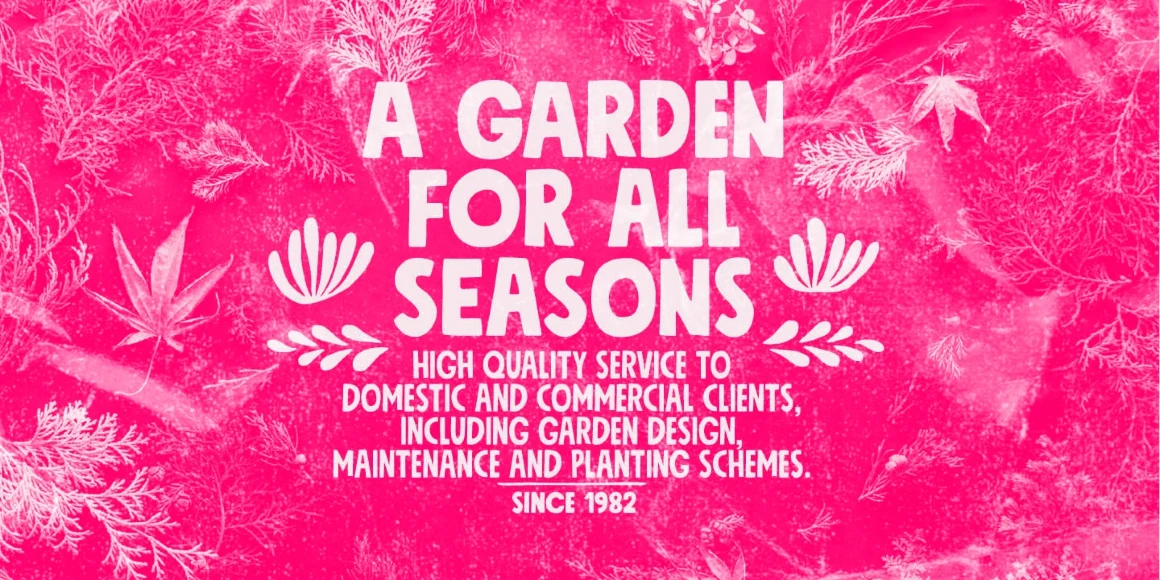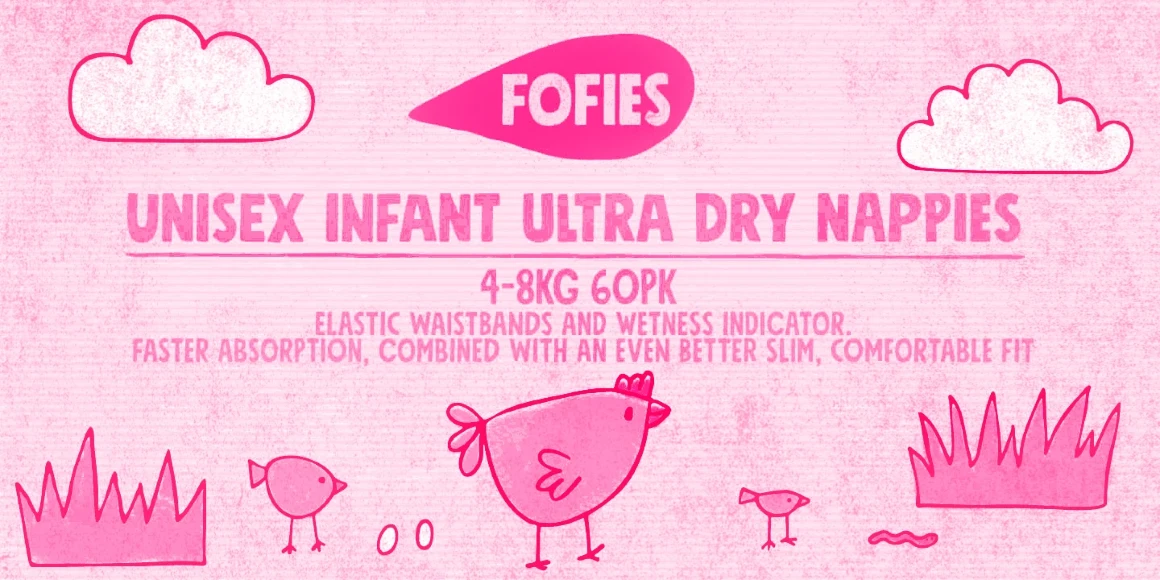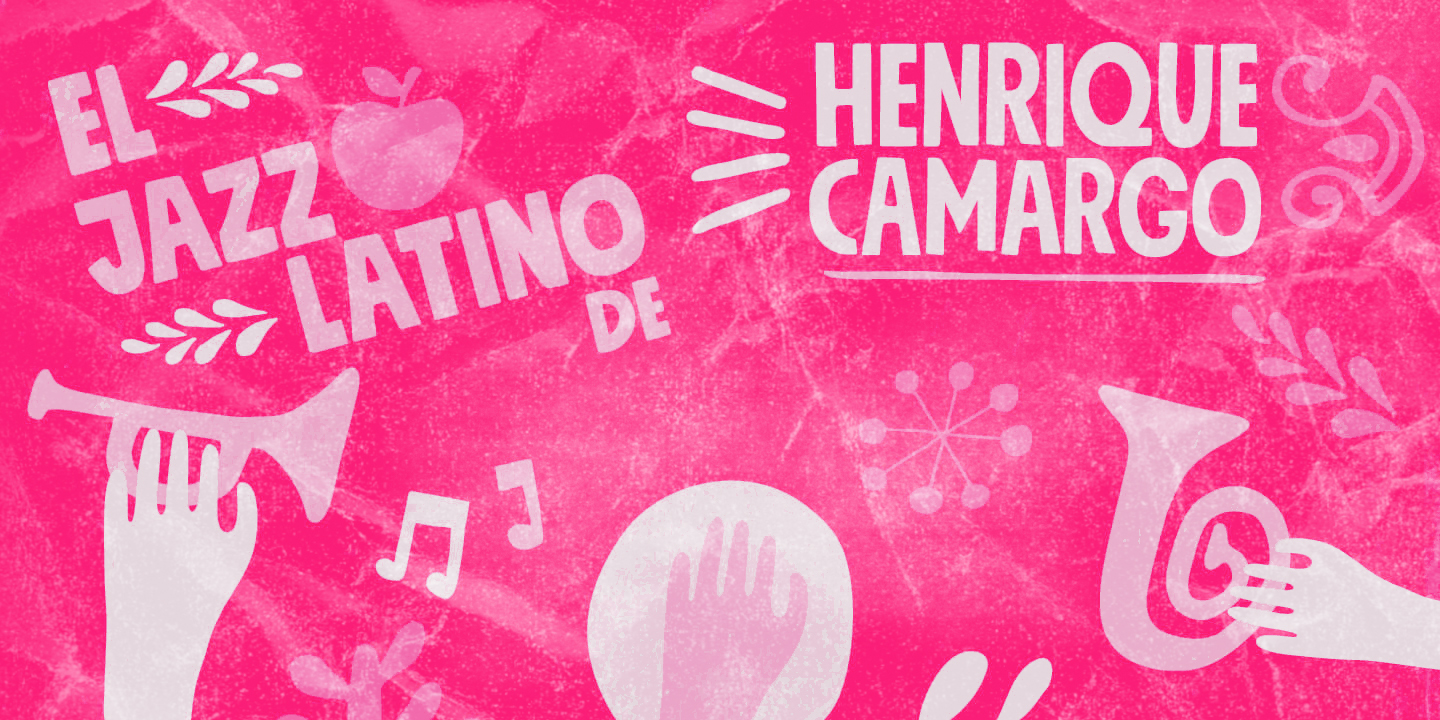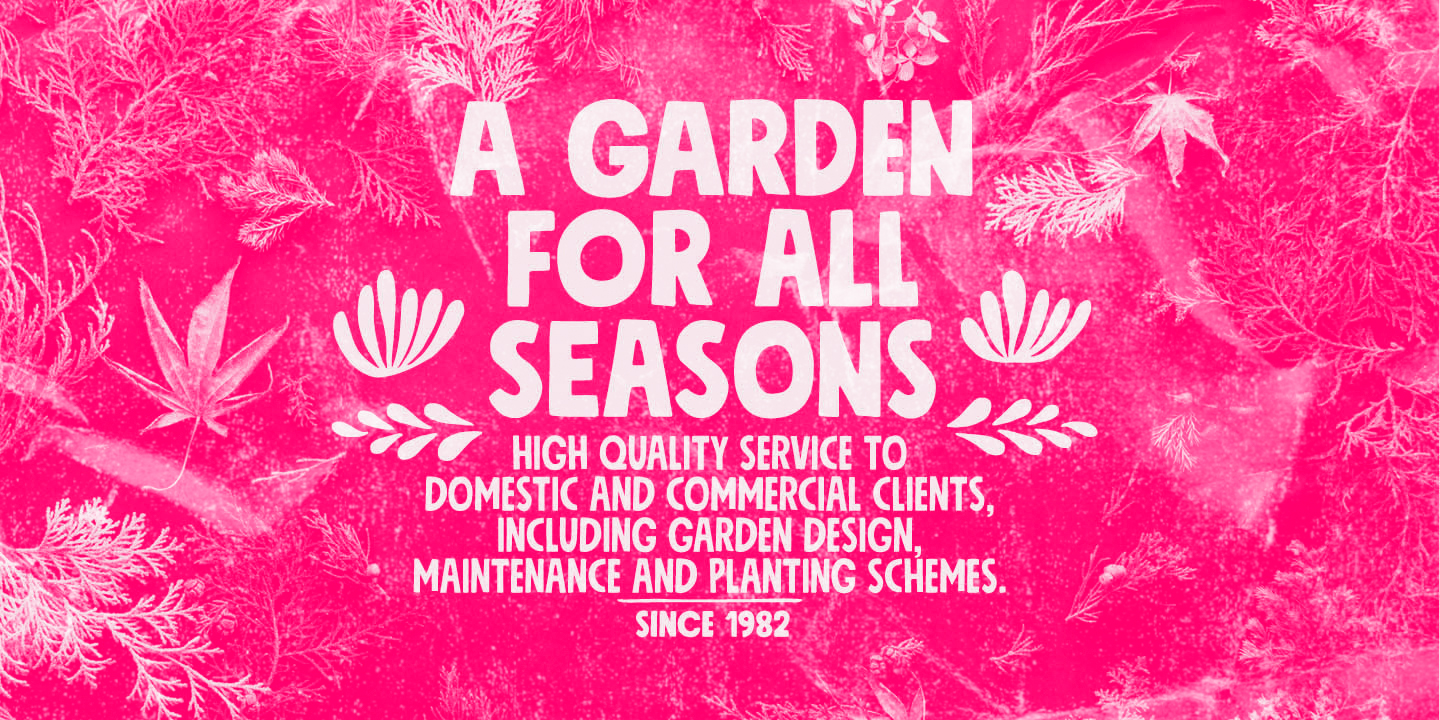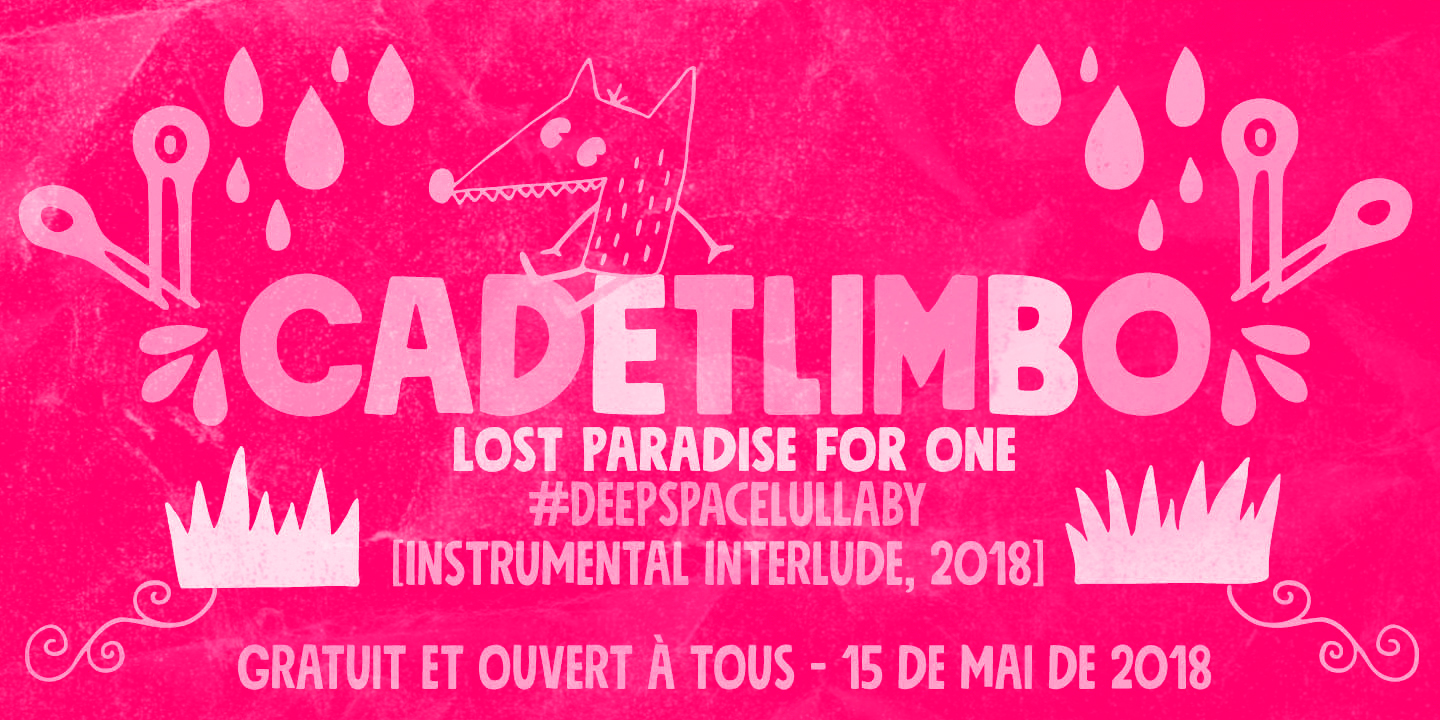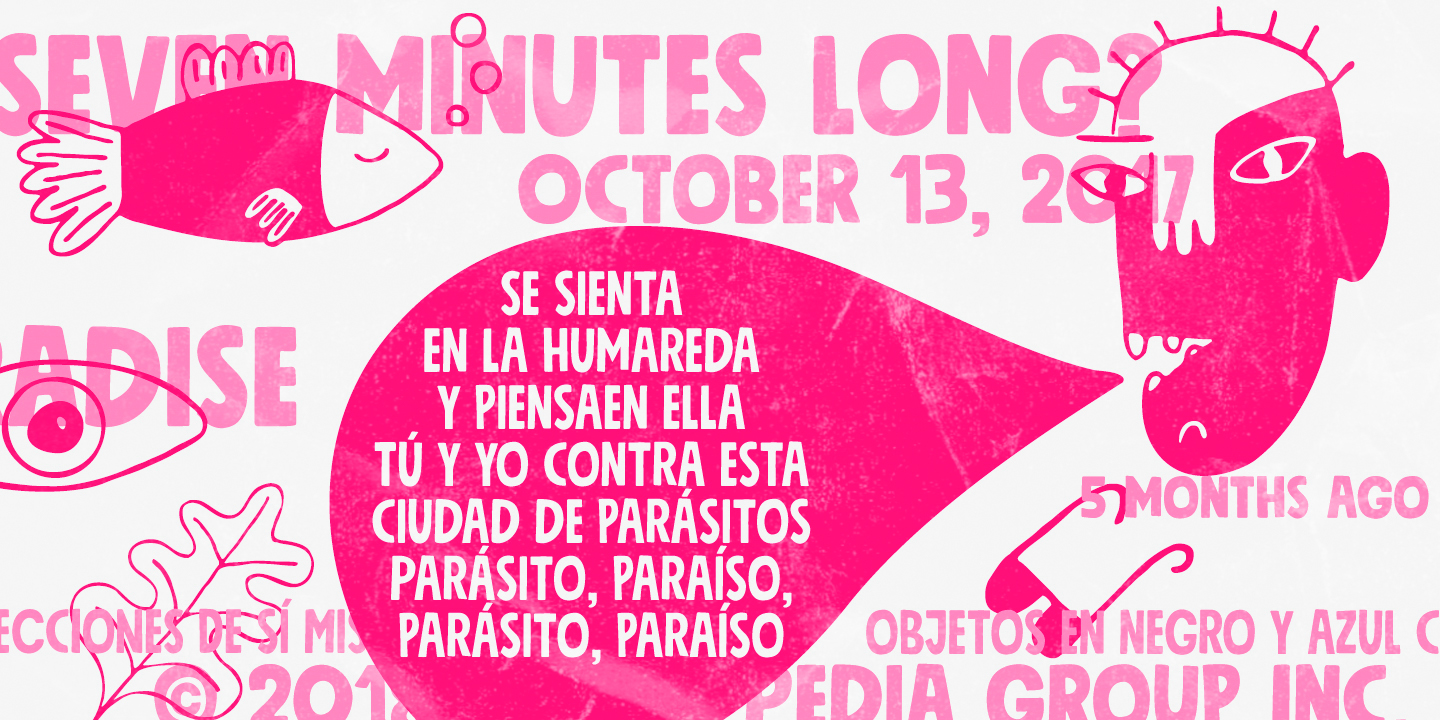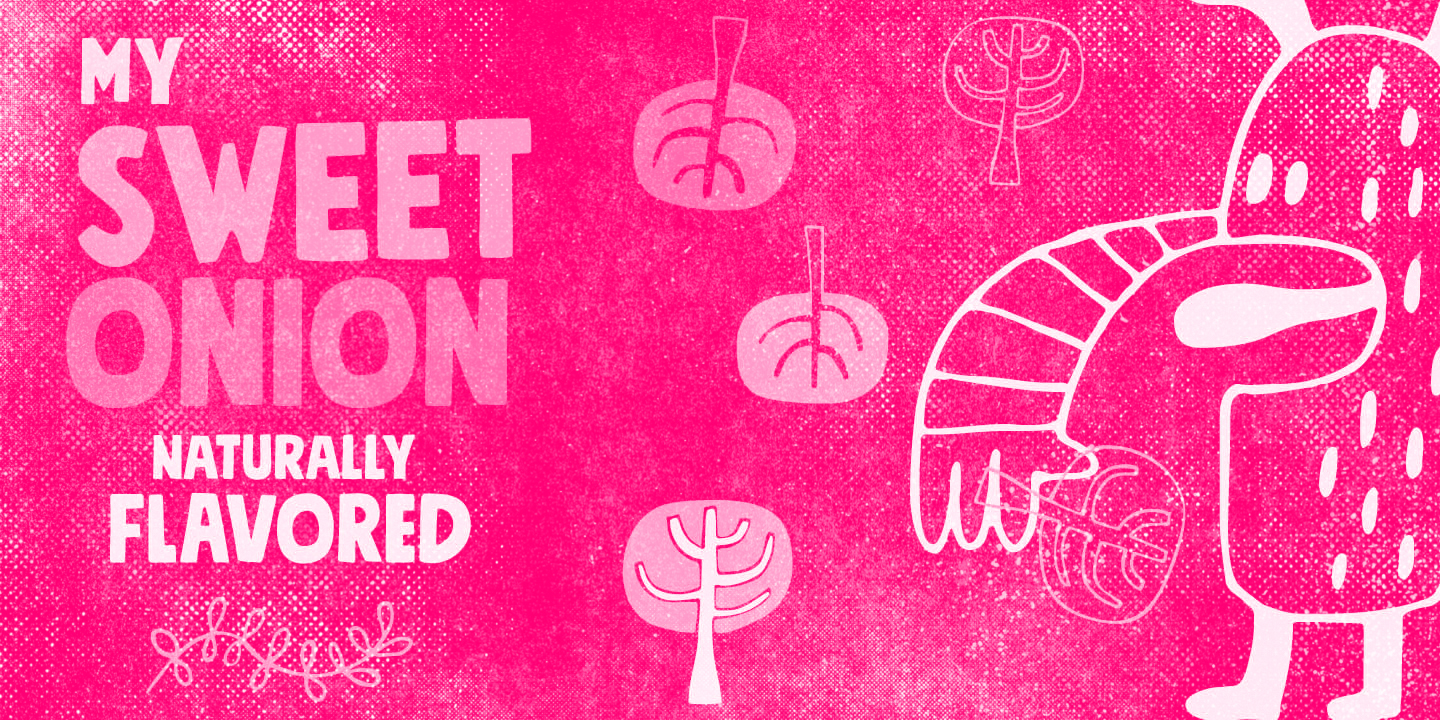
Mindset
Mindset Pics
Mindset Regular
Mindset Slim
Mindset is a bold, hand-lettered sans serif with a quirky personality and a uniquely bespoke feel. Mindset comes in two styles — Regular and Slim — plus a set of fun, illustrated dingbats to round out its creative potential. Distinctive shapes are playful but controlled, making it an excellent choice for confident headlines, expressive packaging, and friendly branding. Use it when character and coolness count.